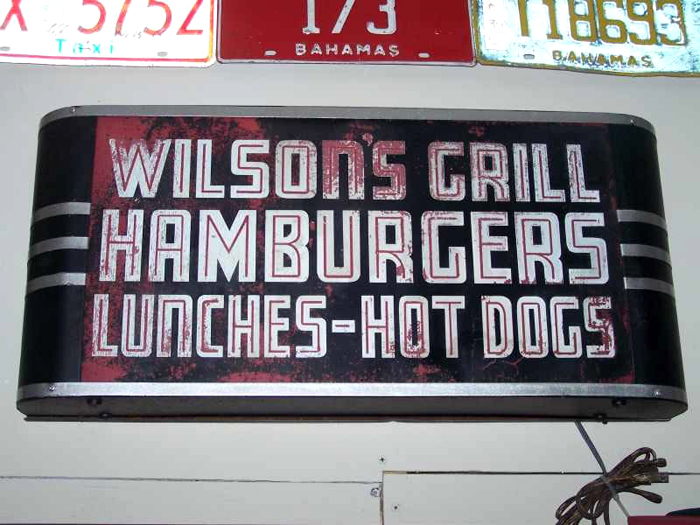
I have a large neon clock with a base that is almost identical to the sign pictured but it's missing the advertising glass. I'd like to reproduce the sign with similar faux aging.
I can't wrap my head around how this was originally made. What order would the colours have been done? It's reversed on glass so I would think the black would go down first, then the white and finished off with the red. What doesn't make sense to me is how the black and white would have disappeared over time exposing the red. I'm baffled!
I'd have to see better photos to be able to tell you anything.
The panel is approx. 18" wide and it's meant to be illuminated. Unfortunately, I don't have a better photo. I took this last year and the sign has since been sold.
Someone has suggested it may actually be two pieces; the front glass and the advertising piece placed behind it. When I saw it in person, it sure looked like it was printed/painted right to the back of the glass, though. I just couldn't understand how the black and white would have disappeared in spots when they were ultimately sandwiched between the red and the glass.
If you look you'll see the black has cracked under the DOGS with red filling the voids in and the pin line in the N is a different shade of red. So have you consider the possibility that the red oxide color (either paint or panel) was placed sometime after it was removed from service as a way to keep the original flaking black, white and red from further loss? As for how the panel would of been made. They'd of laid... black first, red pin line then white. To recreate paint in that way with black lacquer... spray six thin coats allow to dry then, line in your red when dry spray white. Distress... when happy with look... back up with red oxide.